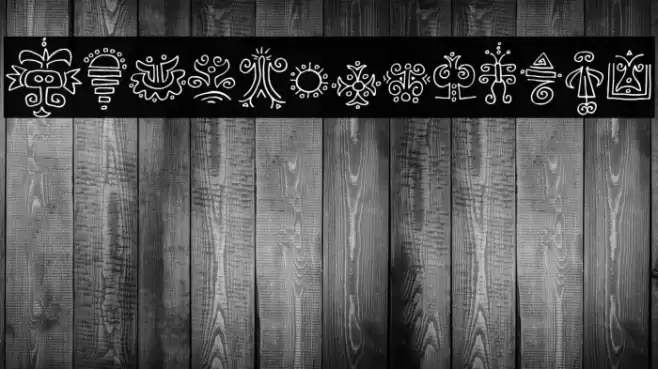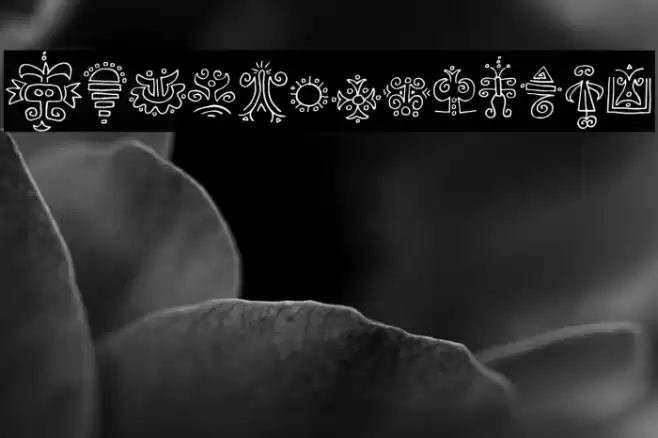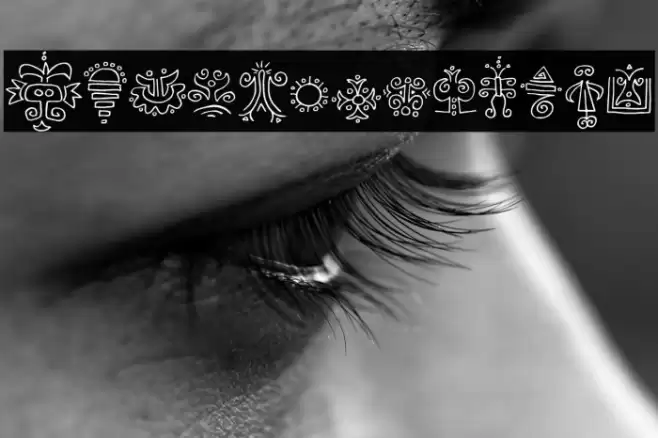
Jiggery pokery Font
Jiggery pokery Description
Highly decorative and abstract font composed of intricate, whimsical glyphs with a tribal or totemic influence, featuring playful linework, geometric shapes, and dot accents. Each character is unique and visually complex, resembling pictograms or symbolic illustrations rather than traditional letterforms.
Abstract, decorative font with intricate, whimsical glyphs from Uncategorized fonts.
- Font: Jiggery pokery
- Proposed Projects: Posters, album covers, branding for creative industries, children’s books, event invitations, art installations.
- Overall Style: Decorative, Abstract, Whimsical, Tribal
- Use Case: Logos, Headlines, Posters, Artistic projects